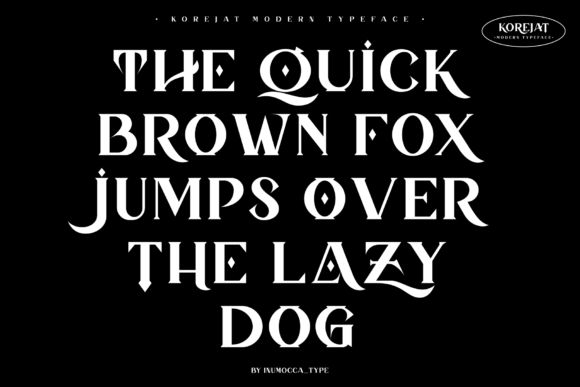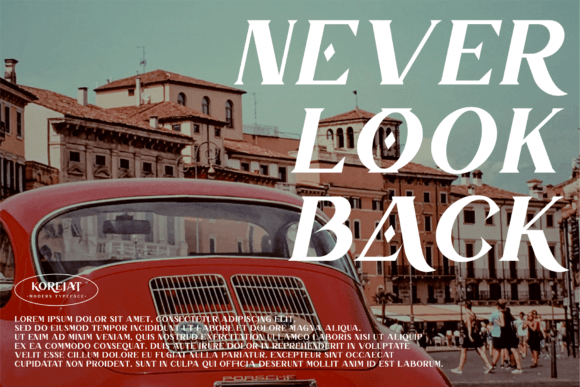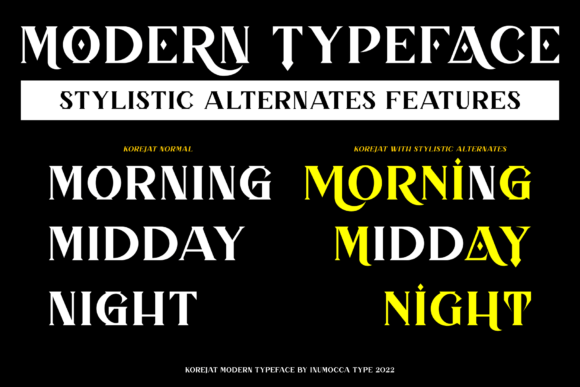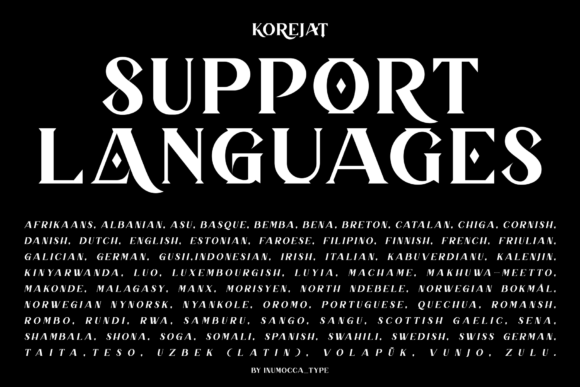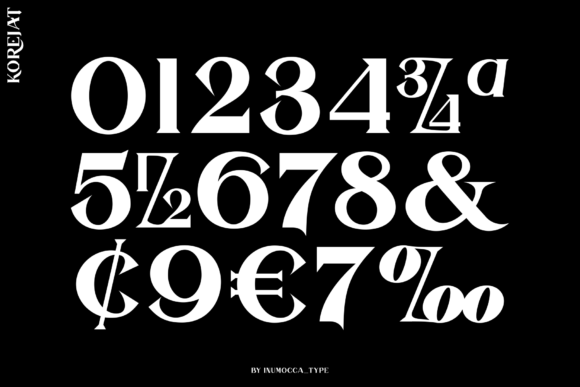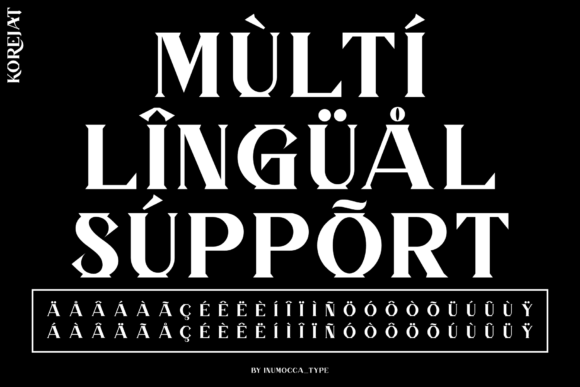
Introduction to Korejat Font
As a designer, you know the thrill of bringing a creative project to life. The rush of excitement when you finally find the perfect design resource, the one that elevates your work to the next level. For me, that moment came when I stumbled upon the Korejat Font. This modern, all-caps serif font is a game-changer, and I’m excited to share its story with you.
With its simple yet playful style, Korejat Font is the perfect choice for branding, movie titles, book covers, and more. Its PUA encoded design makes it easy to access all the glyphs and swashes, giving you the freedom to get creative with your projects. Whether you’re working on a high-quality magazine cover or designing a logo for a new business, Korejat Font is sure to make your work stand out.
Key Features of Korejat Font
- High-quality design: Korejat Font offers a unique and stylish aesthetic, making it an ideal design resource for creative projects.
- Unique characteristics: Korejat Font features a distinctive, hand-drawn style with intricate details, making it a standout design resource.
- Perfect for creative projects: Korejat Font is an excellent choice for designers working on creative projects, such as branding, packaging, and advertising materials.
Honest Review: Korejat Font
As a designer, I’m always on the lookout for high-quality design resources to elevate my creative projects. The Korejat Font is one such find that has caught my attention. ✨ I love how versatile it is, perfect for a wide range of design applications, from logos to typography-based art.
- High-quality design that stands out with its unique style and intricate details.
However, I do have a few reservations about the Korejat Font. ⚠️ For one, the font is not suitable for small-scale text, as its intricate details can become overwhelming at smaller sizes. Additionally, the font’s unique style may not appeal to all designers or projects.
Overall, the Korejat Font is a great addition to any designer’s toolkit. While it may have some limitations, its unique style and high-quality design make it an excellent choice for creative projects that require a touch of sophistication and elegance.
Tips for Getting the Most Out of Korejat Font
Use the Korejat Font in combination with other design resources, such as graphics and images, to create a cohesive and visually appealing design. Experiment with different font sizes, colors, and styles to add depth and interest to your project.
Common Use Cases for Korejat Font
The Korejat Font is suitable for a wide range of creative projects, including brochures, posters, business cards, and social media graphics. It’s also a great choice for headings and titles in presentations and documents.